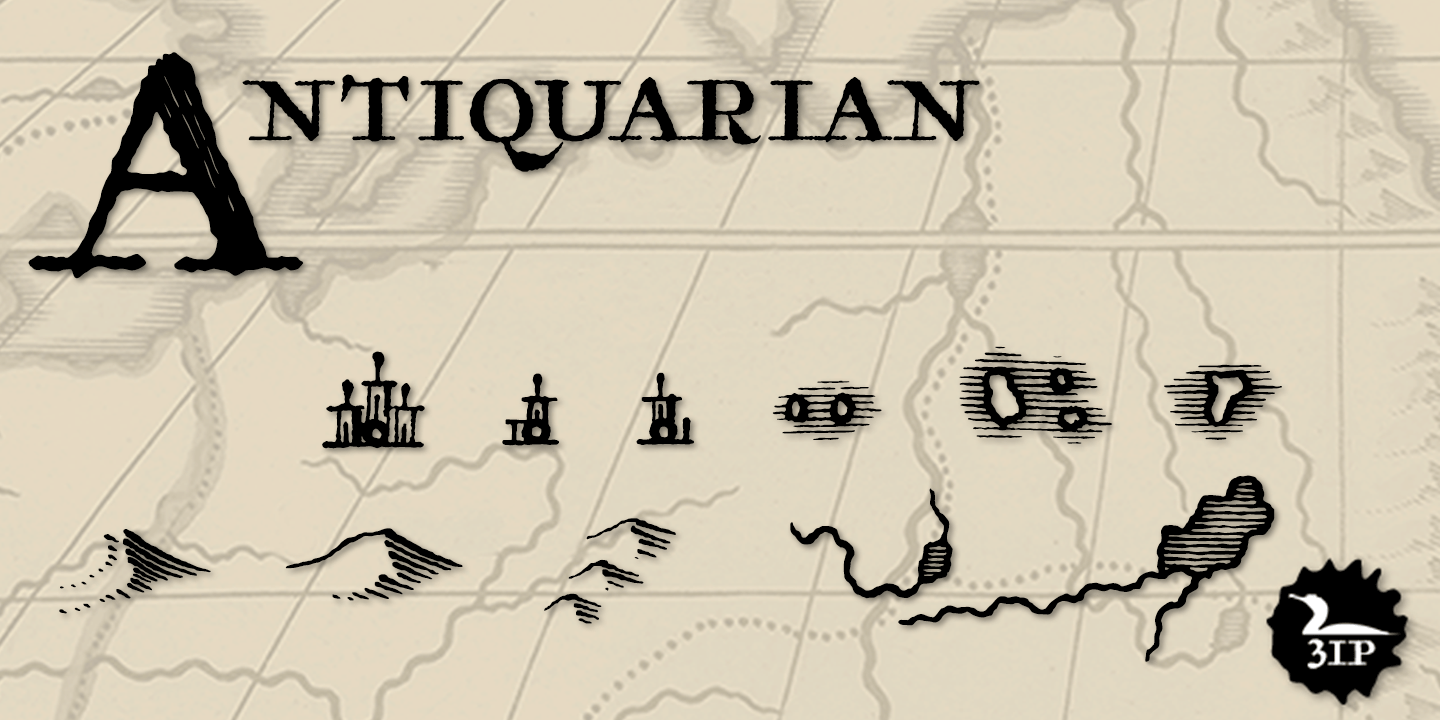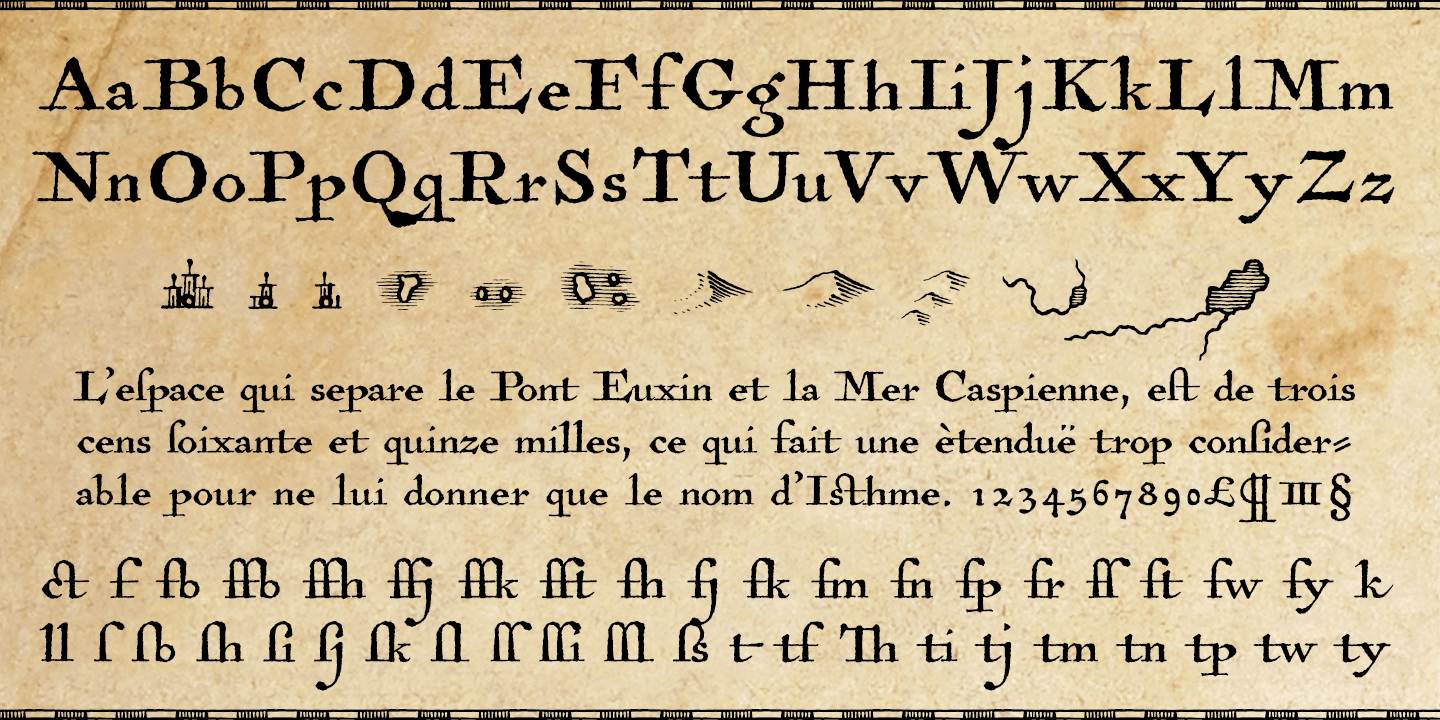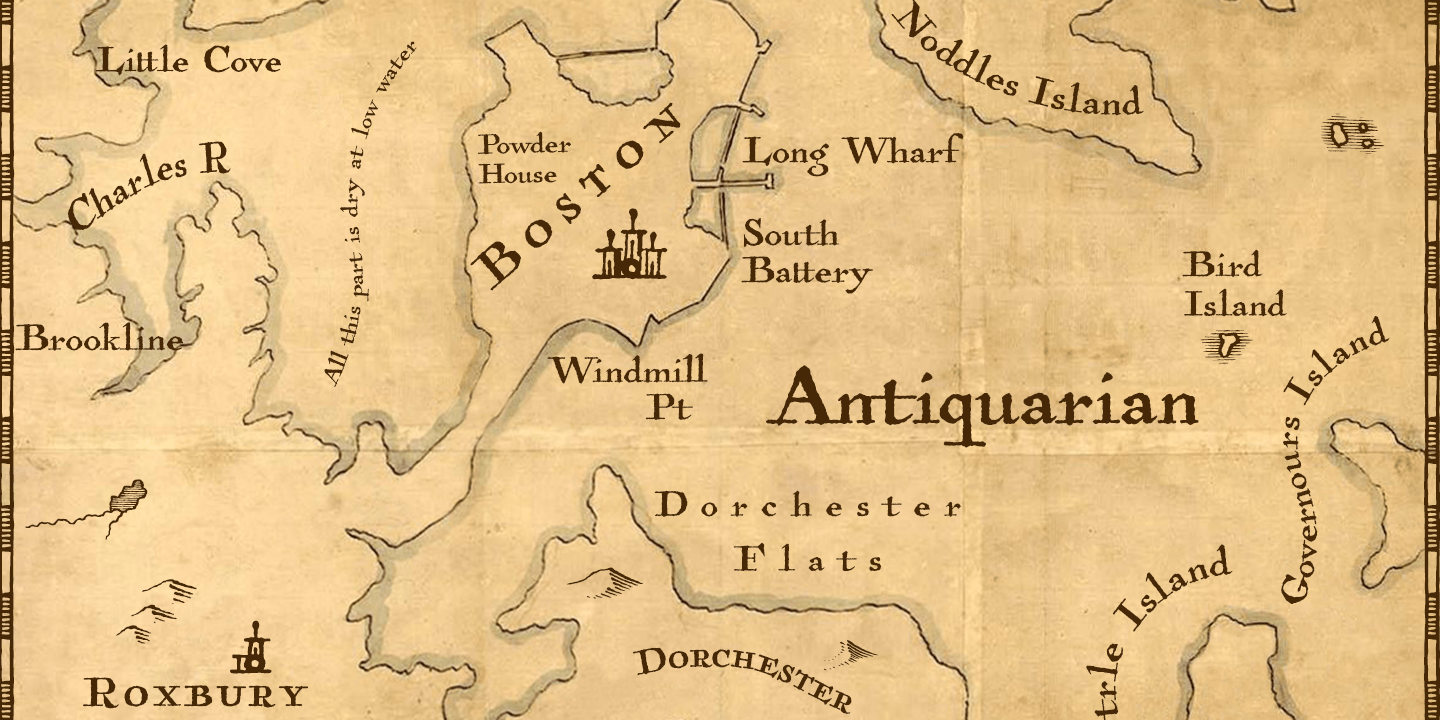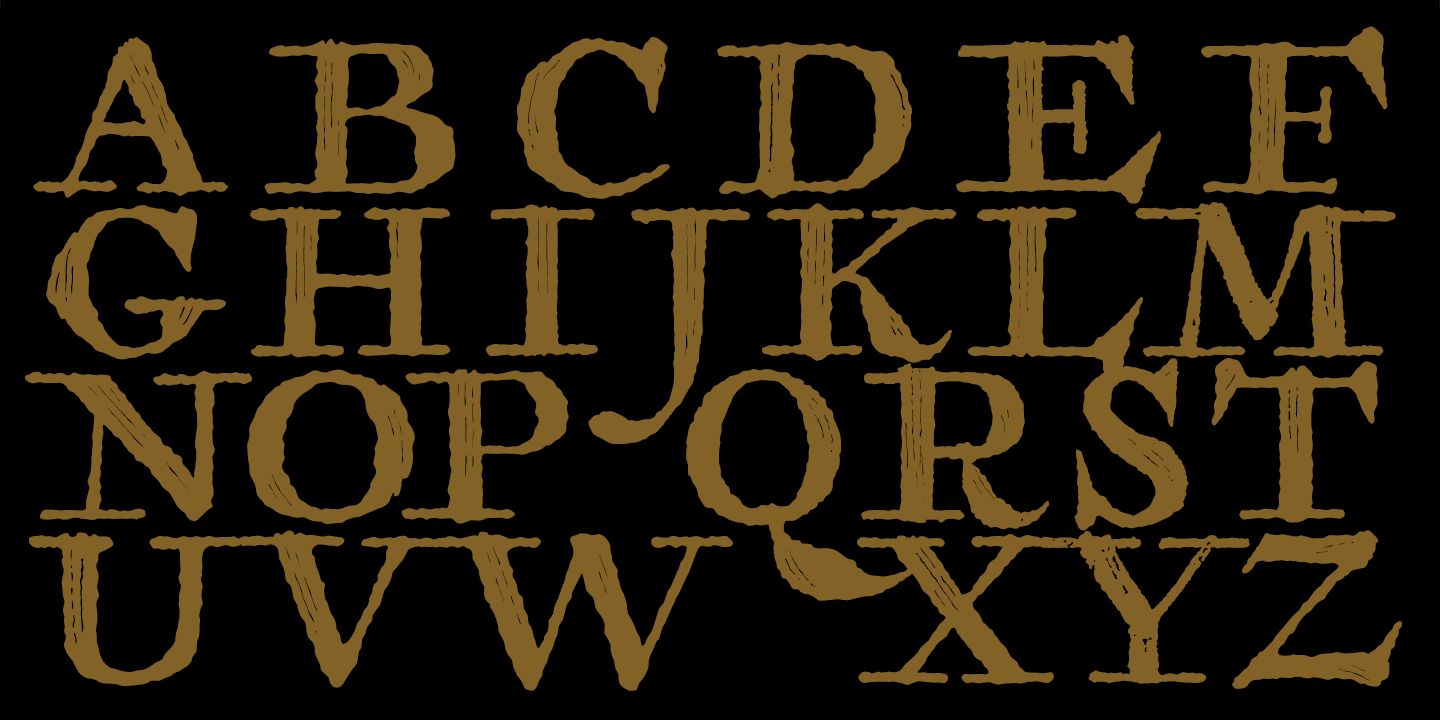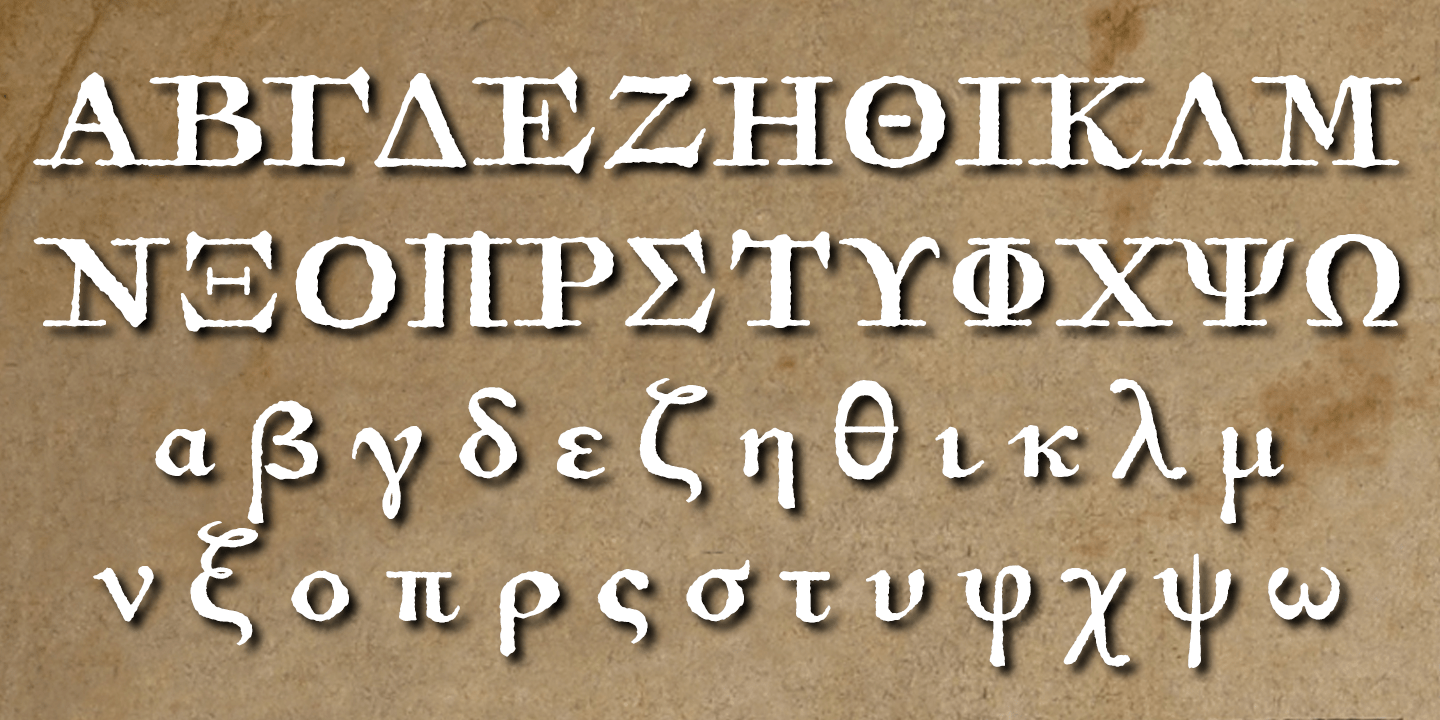
Antiquarian
Font Family by Three Islands Press
The titles struck me as handsome -- the titles and captions and place labels on a page I have of Henri Abraham Chatelain's Atlas Historique. I'd already modeled Antiquarian Scribe after the neat, slanted penmanship used in the body text of Chatelain's famous old world atlas; now I felt compelled to digitize this legible roman handlettering, as well.
The letterforms are strong and handsome. They've got a certain deft, organic character. A personality. I can't fully explain it. But this antique alphabet seems suitable for many applications. Antiquarian is a full-featured font that works well with Antiquarian Scribe.